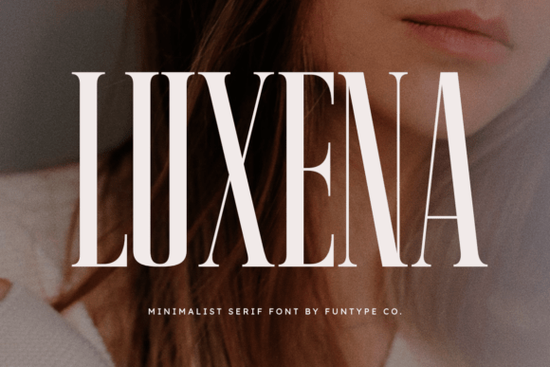
Choosing the right typography can make or break a visual project. When you need something that commands attention without feeling cluttered, the Luxena Font is a strong contender. It brings a bold presence to any layout, specifically designed for high-impact needs. Many designers struggle to find a serif typeface that feels modern yet retains traditional elegance. This specific typeface bridges that gap by offering a refined tall structure with clean lines. It is particularly useful for professionals who need their work to look sophisticated immediately upon viewing.
For small business owners and crafters, typography is often the first thing a customer notices. A weak font can make a luxury product look cheap, while a strong one adds perceived value. This tool provides the necessary weight and balance to ensure your headlines stand out. Whether you are creating a fashion logo or a digital poster, the goal is clarity mixed with style. You want your audience to read the text easily while feeling the quality of the brand behind it.
What specific design features define this typeface?
The core appeal lies in its minimalist serif construction. Unlike older serif fonts that can feel heavy or ornate, this design strips away unnecessary details. The result is a clean, elegant look that works well in various lighting conditions and screen sizes. The tall structure gives the letters a sense of authority. This is crucial for branding where you want to project confidence. Each character is balanced to ensure readability even at smaller sizes, though it shines brightest in larger displays.
Designers often look for versatility within a single file. This font delivers by maintaining consistency across all characters. The serif lines are precise, avoiding any jagged edges that might distract the viewer. When you compare it to other options in the serif fonts category, you will notice the emphasis on verticality. This makes it an excellent choice for vertical layouts or narrow spaces where horizontal width is limited. It allows you to maintain a strong visual identity without overcrowding your design canvas.
Which projects benefit most from this style?
This typeface is ideally suited for professional luxury branding. If you are working with high-end clients in fashion or beauty, the sleek design matches their aesthetic requirements. It also performs well for strong headlines in magazines or online articles. For print-on-demand sellers, using a distinct font on t-shirts or mugs can set your products apart from generic templates. The boldness ensures the text remains legible even when printed on textured materials.
Digital posters are another area where this tool excels. Social media graphics require quick readability as users scroll through feeds. The high-impact nature of the letters grabs attention instantly. If you are exploring different vibes for your project, you might also consider similar serif styles to see how slight variations change the mood. However, for a confident and sleek look, this specific choice remains a top pick. It helps create a cohesive visual language across your marketing materials.
Why choose a minimalist serif for luxury branding?
Luxury branding relies on subtlety and refinement. A minimalist serif conveys sophistication without shouting. It suggests that the brand is secure enough in its quality that it does not need flashy decorations. The balanced design gives your visuals a striking and professional look. This psychological effect is powerful in marketing. Customers associate clean typography with premium services and products.
When building a brand identity, consistency is key. Using a font like this across your packaging, website, and social media creates a unified experience. You can view the full product details to understand the specific glyph set included. Knowing exactly what characters are available helps you plan your designs better. It ensures you won't run into missing symbols when creating international campaigns or specialized logos. This level of planning contributes to a polished final output.